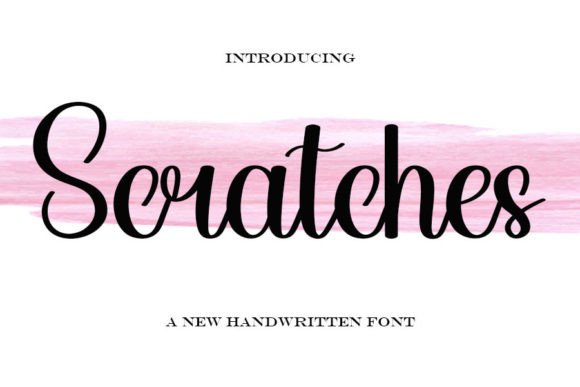
Introducing Scratches Font, the perfect choice for adding a touch of elegance and charm to your projects! This exquisite handwritten font, created by putrasyahreza00, is sure to captivate your audience with its neat and beautiful design.
With its incredibly distinct and timeless style, Scratches Font will make your creations stand out from the crowd. Whether you're designing invitations, branding materials, or social media graphics, this font will add a touch of sophistication and creativity to your work.
Fall in love with the graceful curves and unique strokes of Scratches Font. Each letter is meticulously crafted to embody the essence of handwritten beauty. The elegant touch of this font will give your designs a personal and intimate feel, making them truly memorable.
Imagine the possibilities! With Scratches Font, you can effortlessly create stunning wedding invitations that exude romance and grace. Its script style brings a sense of elegance and refinement to any project, making it the perfect choice for formal events and special occasions.
But Scratches Font isn't just for weddings and events. It's also versatile enough to be used in a wide range of design projects. From logo design to product packaging, this font will bring a touch of authenticity and uniqueness to your creations.
Don't settle for ordinary fonts when you can have the extraordinary. Scratches Font will make your projects shine with its captivating beauty and refined elegance. It's time to take your designs to the next level and leave a lasting impression on your audience.